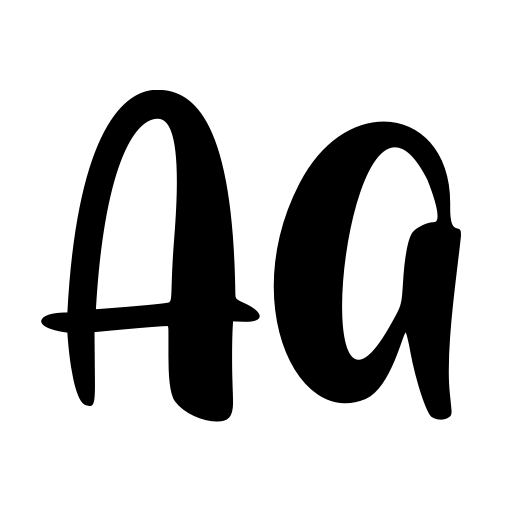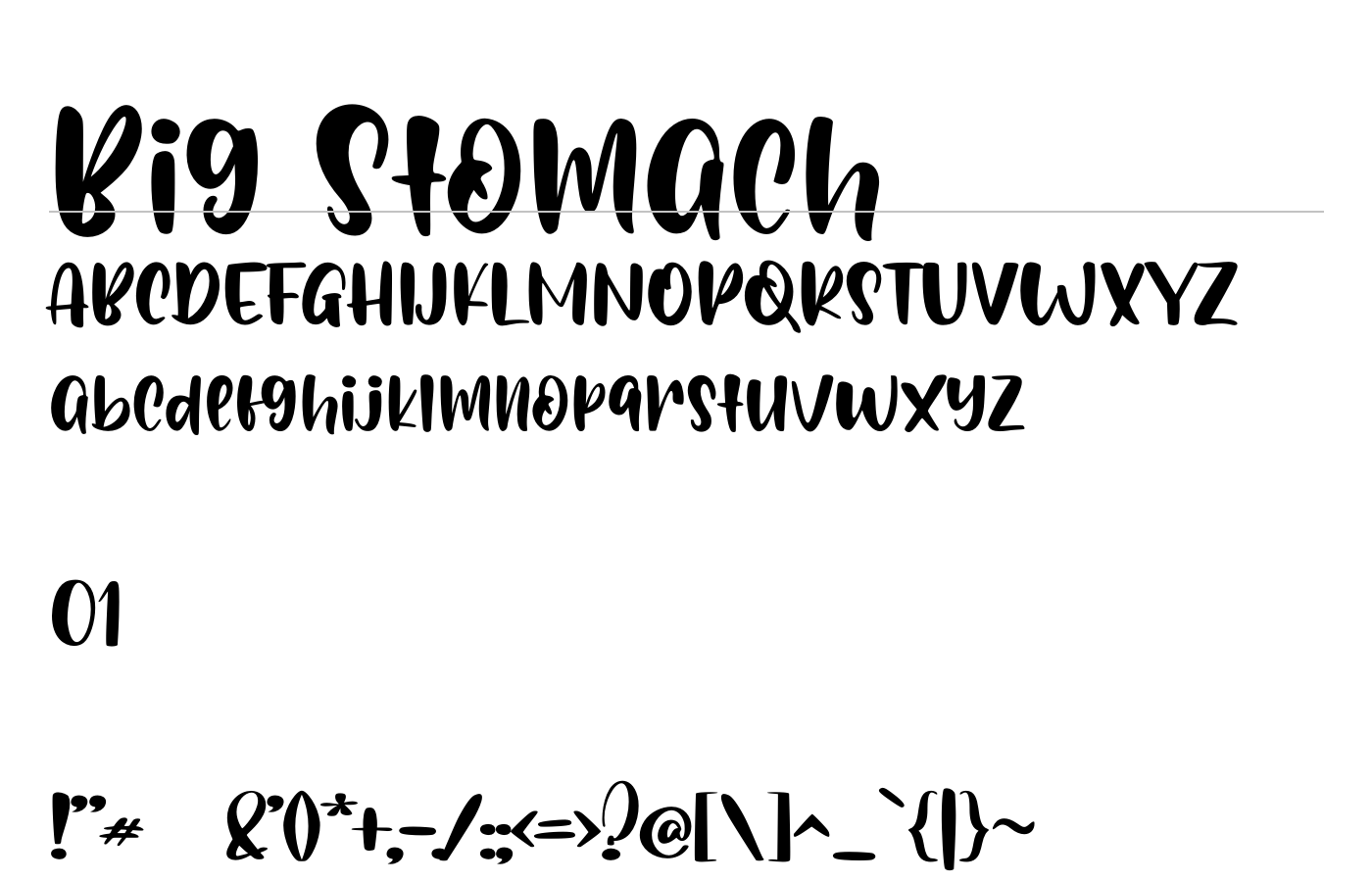
Big Stomach is a playful, bold script font with a handwritten feel, featuring thick, rounded strokes and quirky letterforms that add a fun and casual personality. Its lively and informal style makes it perfect for creative projects like children’s books, invitations, and branding that seeks a friendly, approachable vibe. This font works best in headlines or display use where a whimsical and inviting atmosphere is desired.
Big Stomach Font
About Big Stomach Font
| Designer | Sarwo Edhi Prayitno |